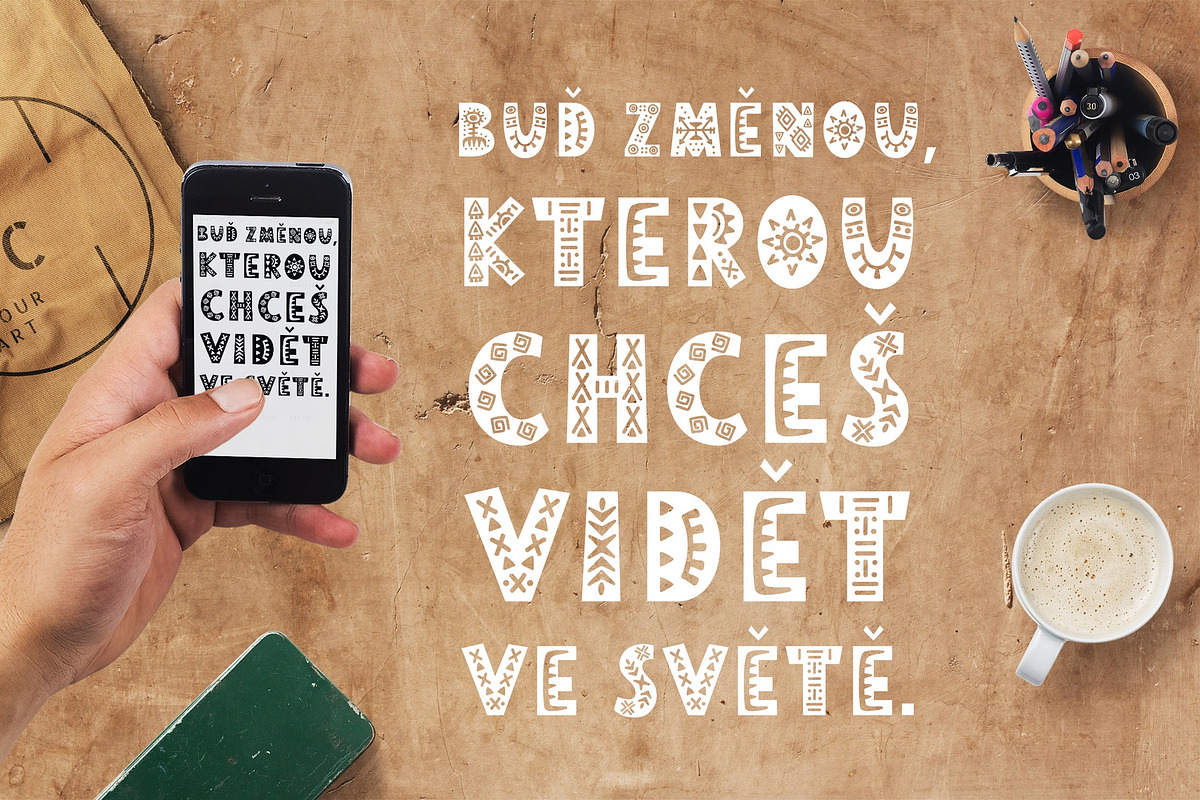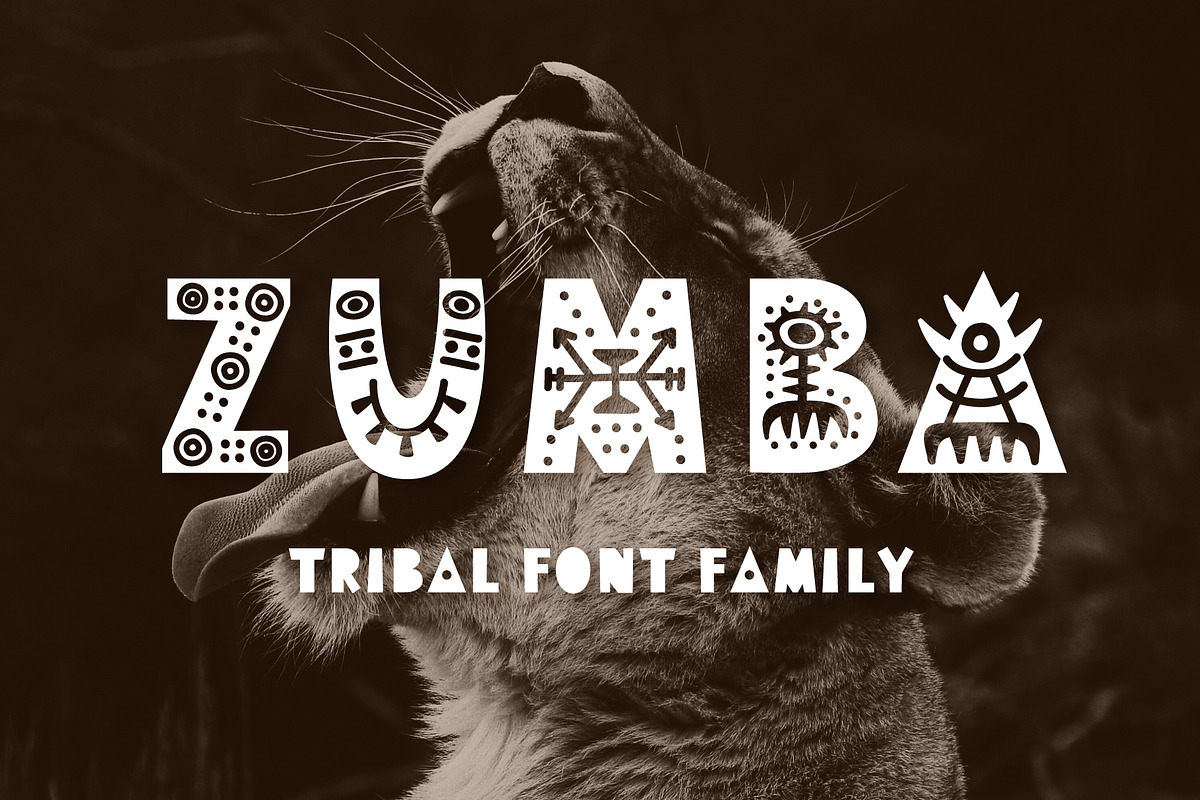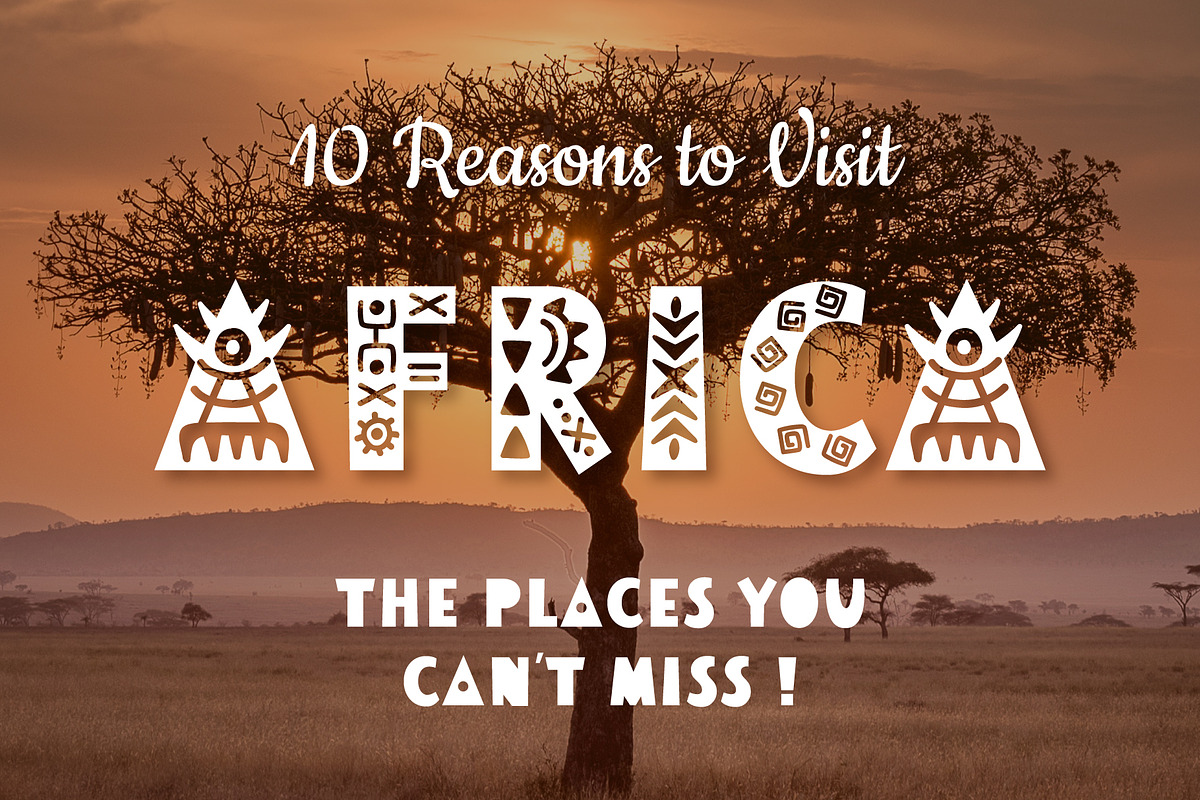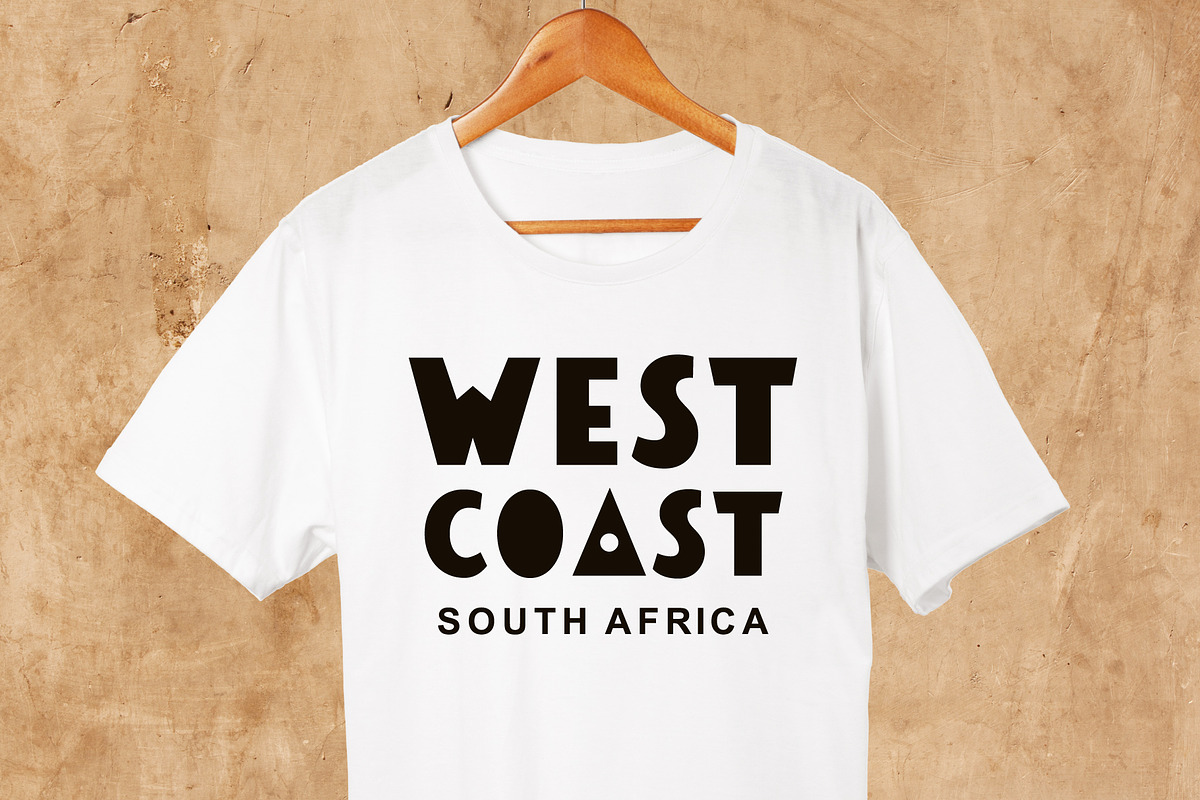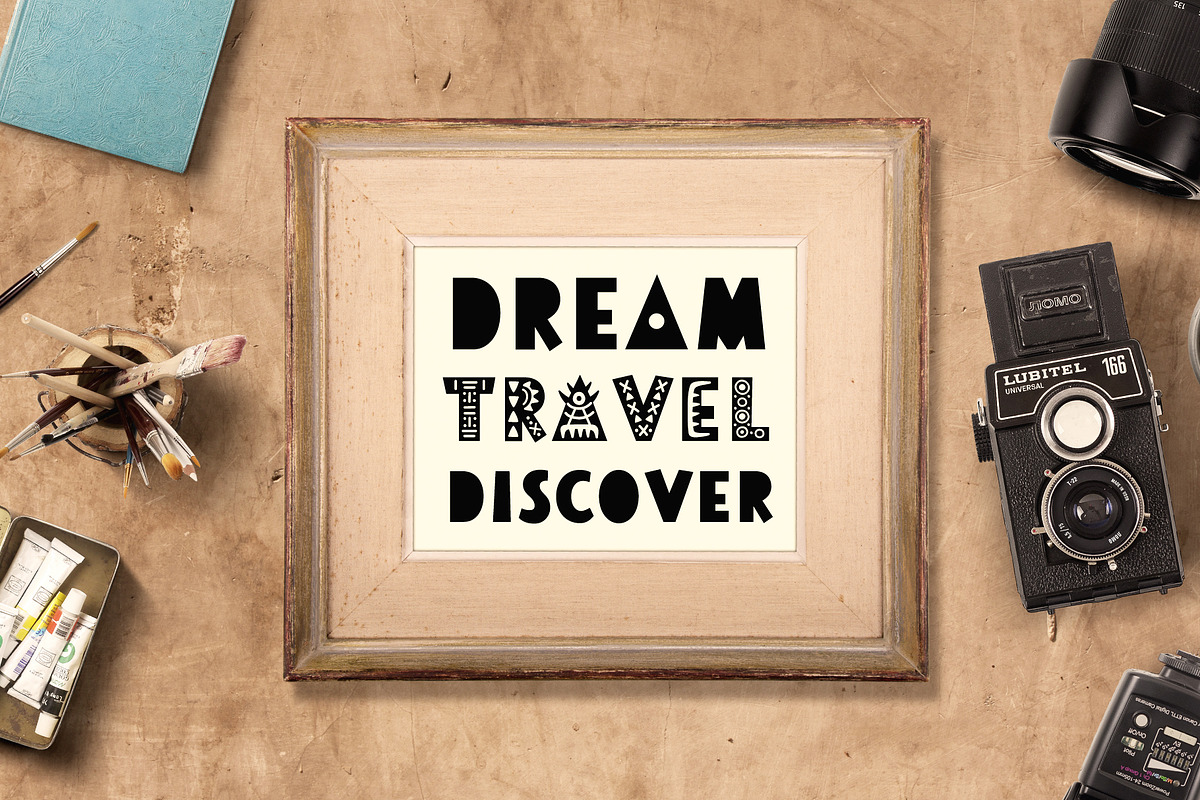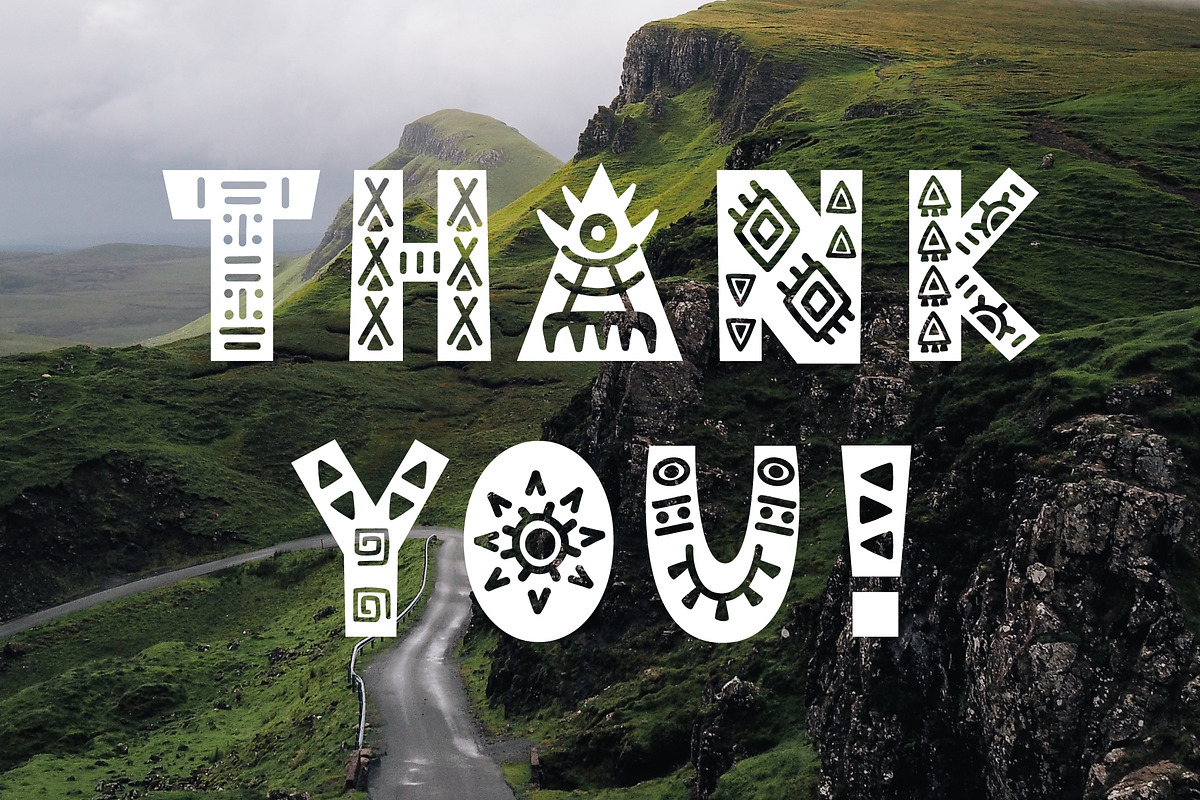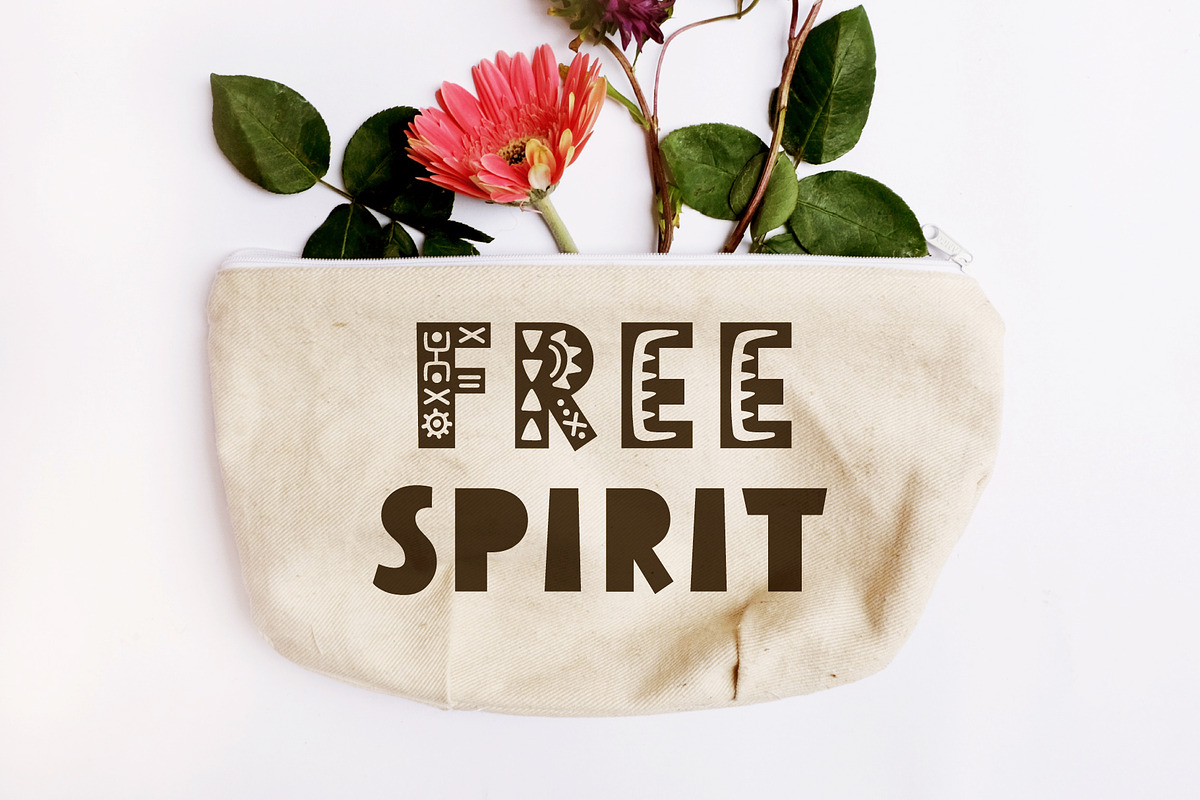
Zumba Tribal Font Duo
Hey everyone! This font family tells about my love to Africa. I'm glad to introduce you new decorative Zumba Tribal Font Family. It's perfect for lettering, hand craft products, branding, logos, monograms, headlines, hipster T-shirt prints and photo overlays.
This font includes Decorative, Black and Symbols, numbers and punctuations (please look at preview to see all symbols).
I have spent a lot of time in Southern Africa over the last 50 years and am making videos of my experiences in the region as I can no longer visit so frequently. I wanted a font with distinctive African style for titles. Zumba is ideal and appears automatically in the list of fonts in Final Cut Pro. It is easy to use, even for an amateur like me.